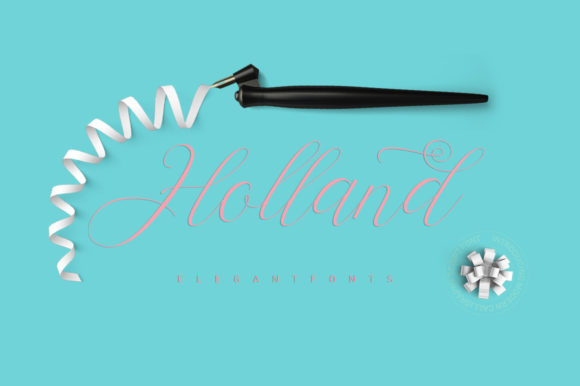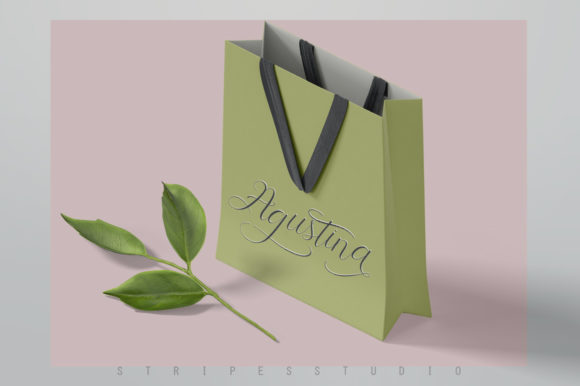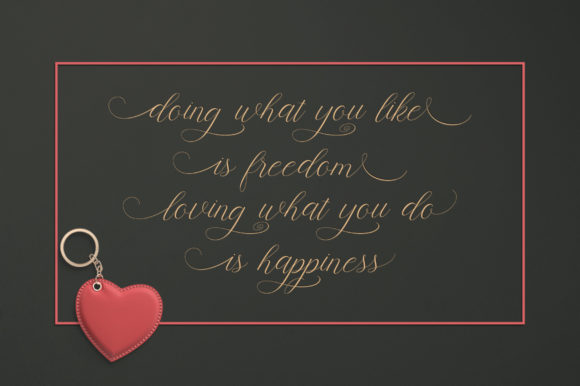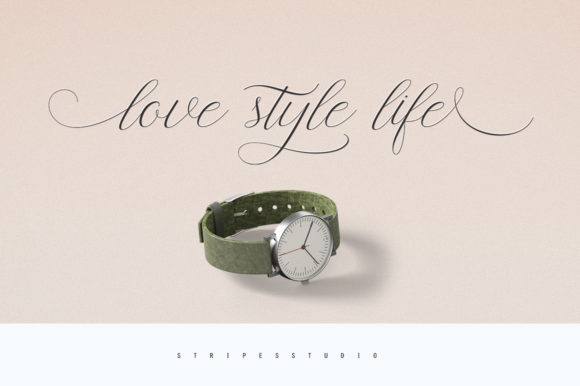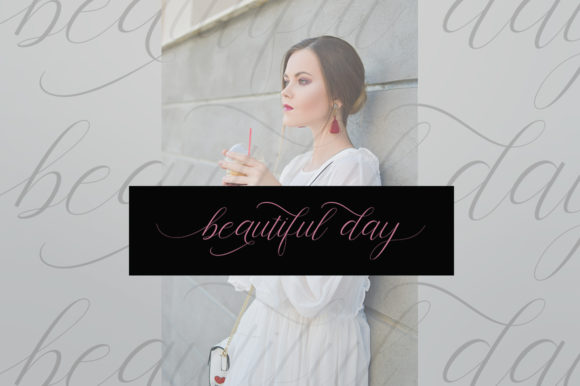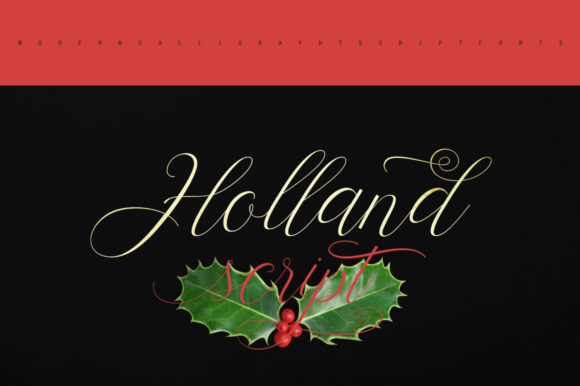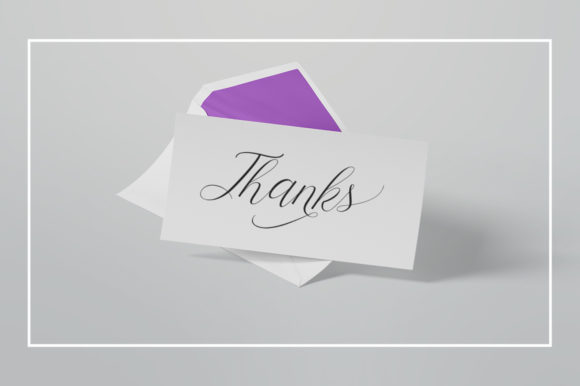
Holland Script Font
About Holland Script Font
The Holland is a modern handwritten script. It’s easy to use and has a great readability. Perfect for branding designs!